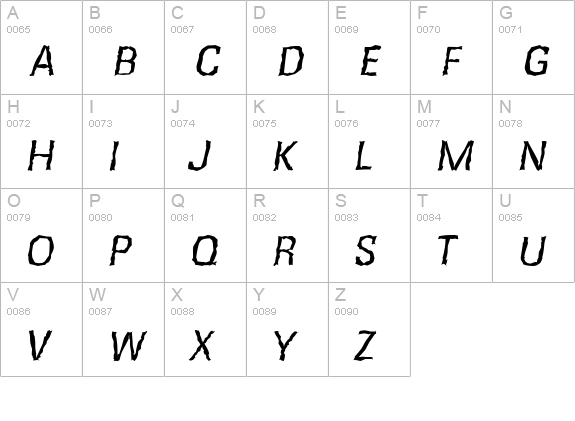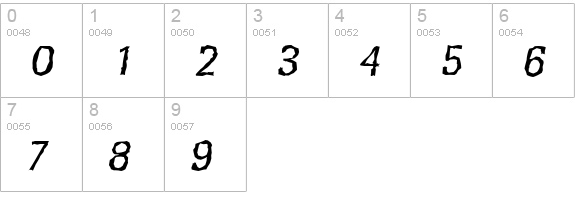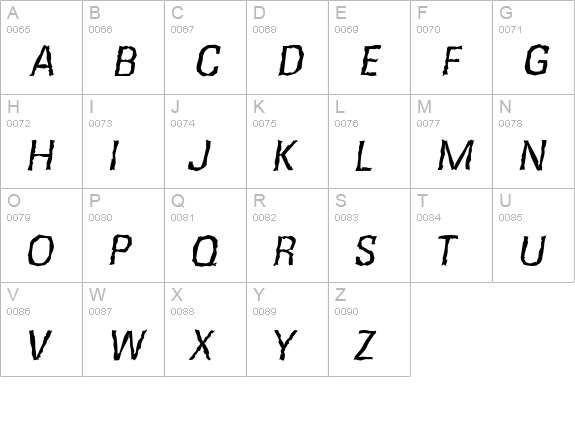
RochesterRandom-Italic is a distinctive, italic variant in the RochesterRandom typeface family \xE2\x80\x94 well suited to design and typography projects.
RochesterRandom-Italic font is a unique and stylish typeface that exudes a sense of creativity and sophistication. Its italicized design adds a touch of elegance and flair to any project, making it perfect for use in branding, packaging, and editorial design. The font features a random and irregular pattern that adds a playful and dynamic element to your text. Best of all, RochesterRandom-Italic is available for free download at FontsMarket.com. This means you can easily access this eye-catching font and use it in your designs without any cost. Whether you're a professional designer or a DIY enthusiast, RochesterRandom-Italic offers a versatile and modern typography solution that will elevate your projects to the next level. Download RochesterRandom-Italic today and add a touch of sophistication to your designs!